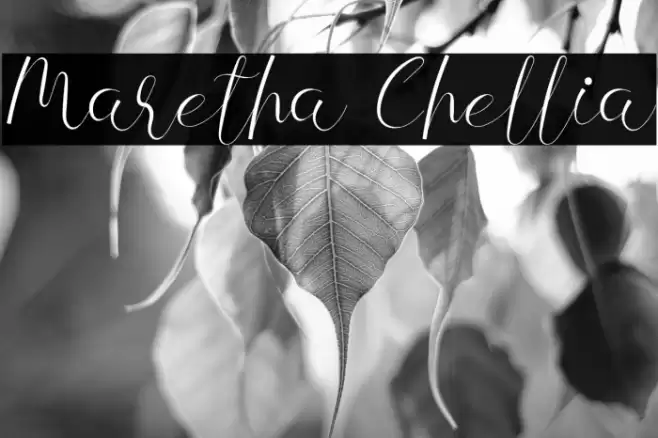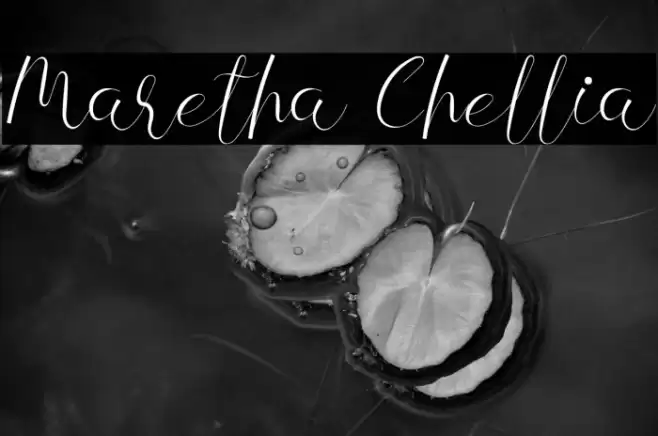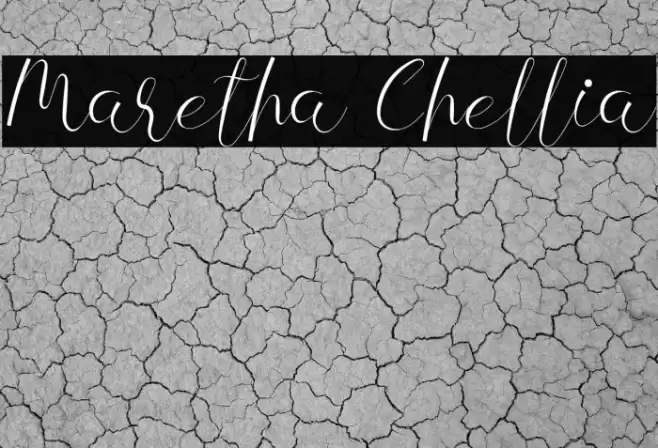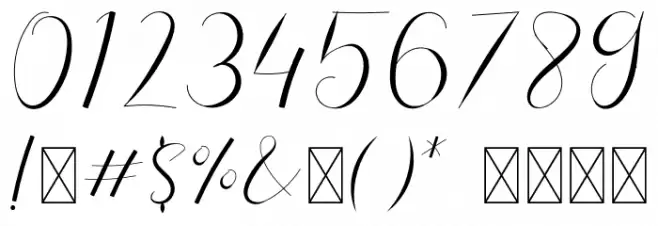
Maretha Chellia Font
Maretha Chellia Description
This elegant script font features a delicate and flowing design, characterized by its thin, graceful strokes and subtle curves. The uppercase letters are slightly more structured, providing a nice contrast to the more fluid lowercase characters. The numerals maintain the same elegant style, with a consistent stroke weight that complements the overall aesthetic. Special characters are thoughtfully designed to match the font's sophisticated appearance. This font exudes a sense of refinement and elegance, making it ideal for formal invitations, branding, and any project that requires a touch of class.
An elegant and flowing script font with delicate, graceful strokes from Regular fonts.
- Proposed Projects: Ideal for wedding invitations, elegant branding, luxury product packaging, and formal event materials.
- Overall Style: Elegant
- Use Case: Invitations, Branding, Packaging